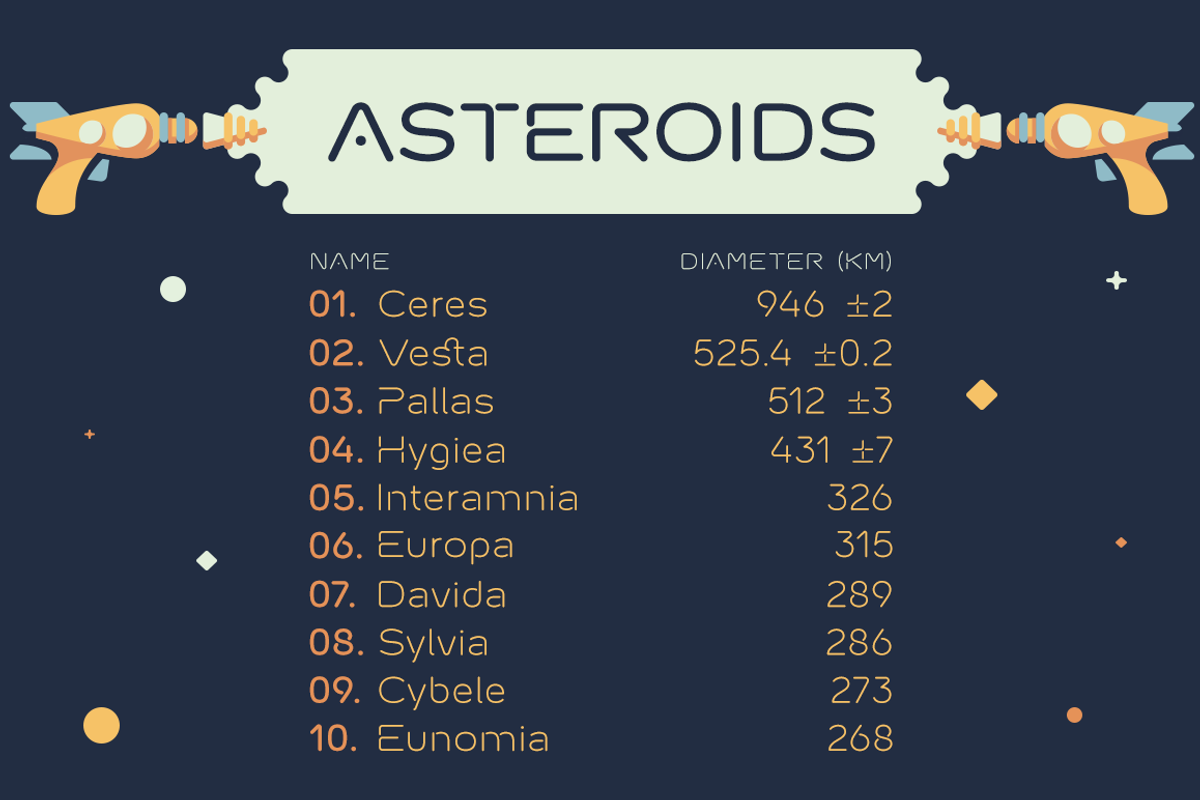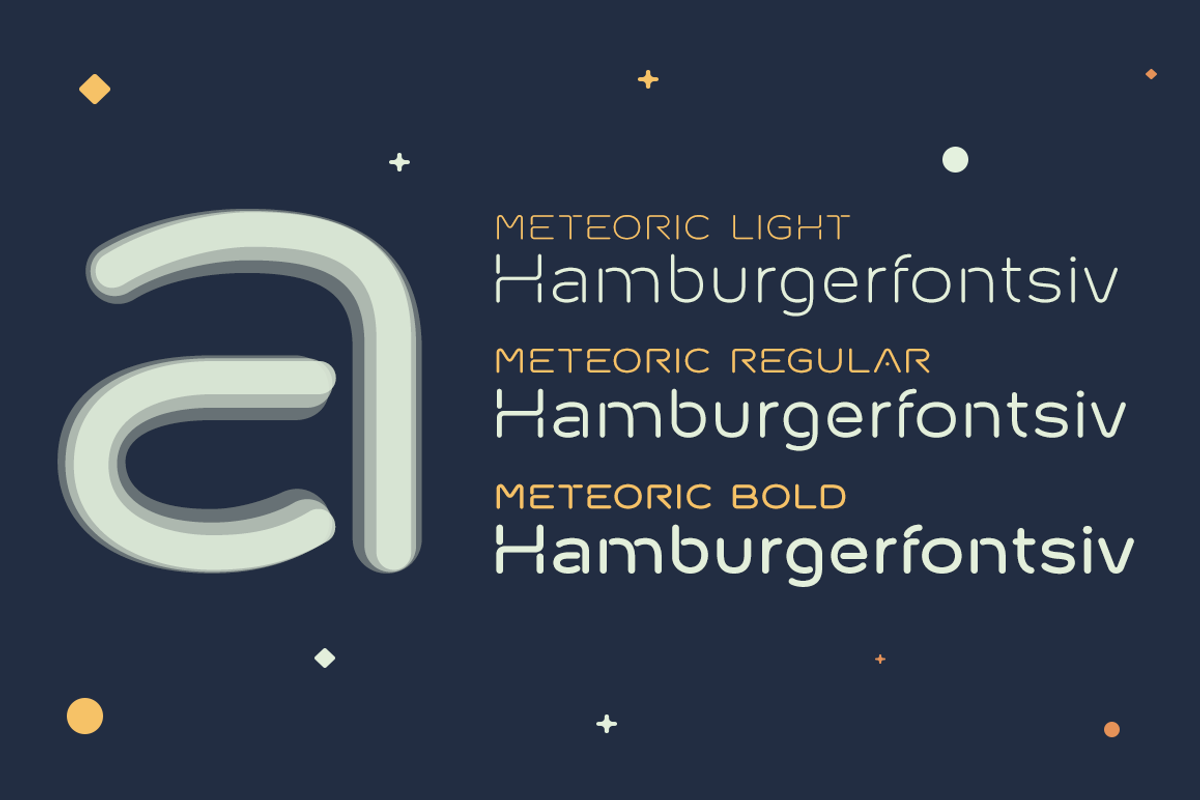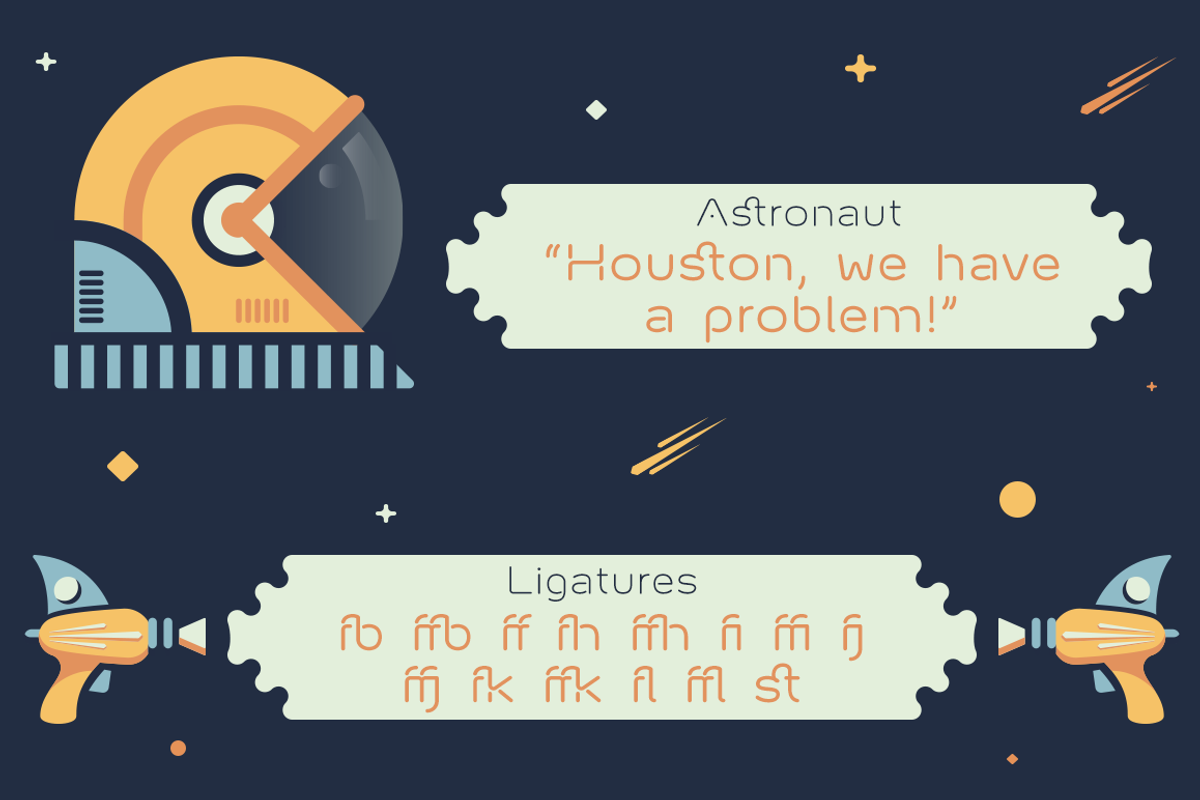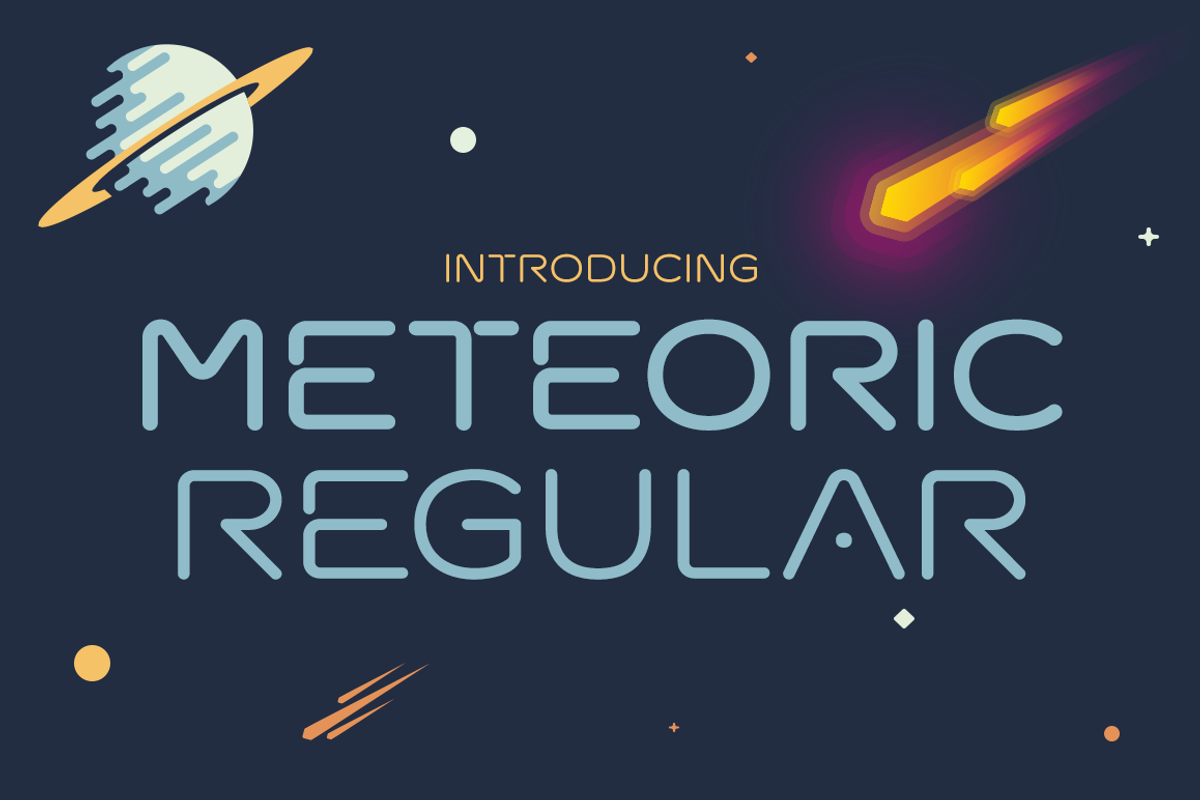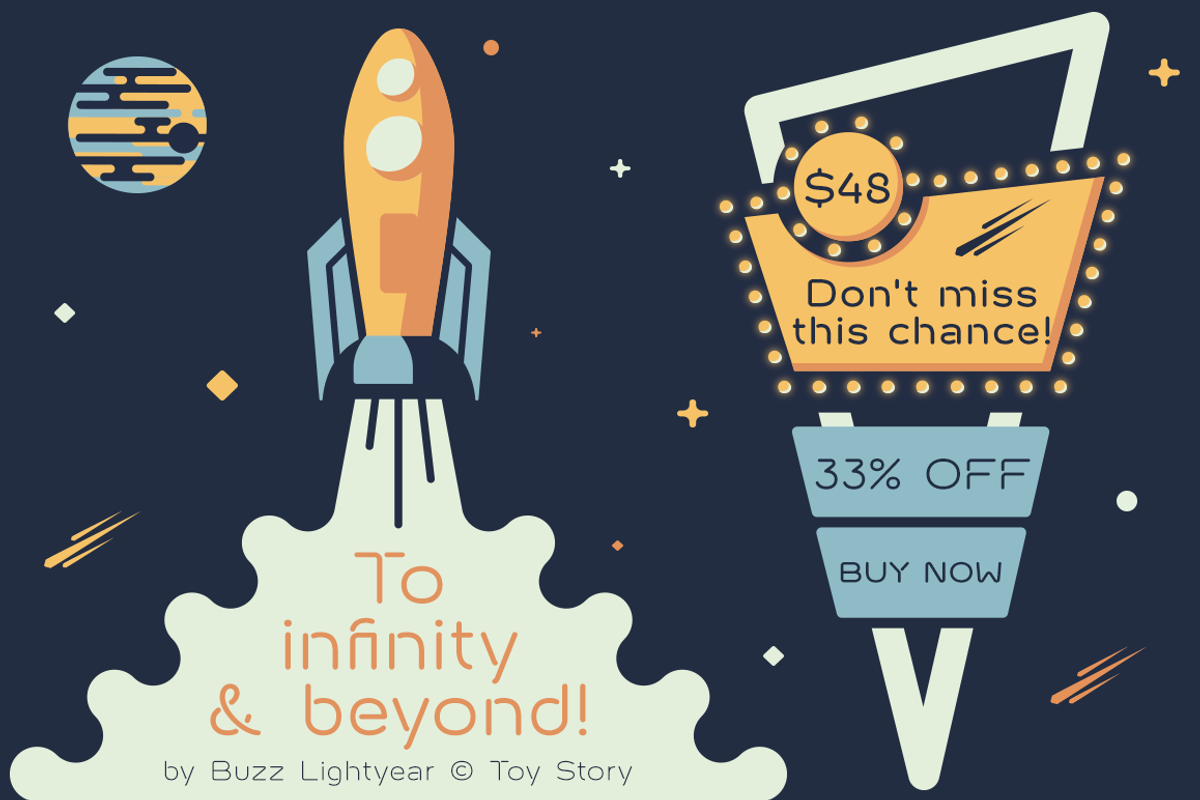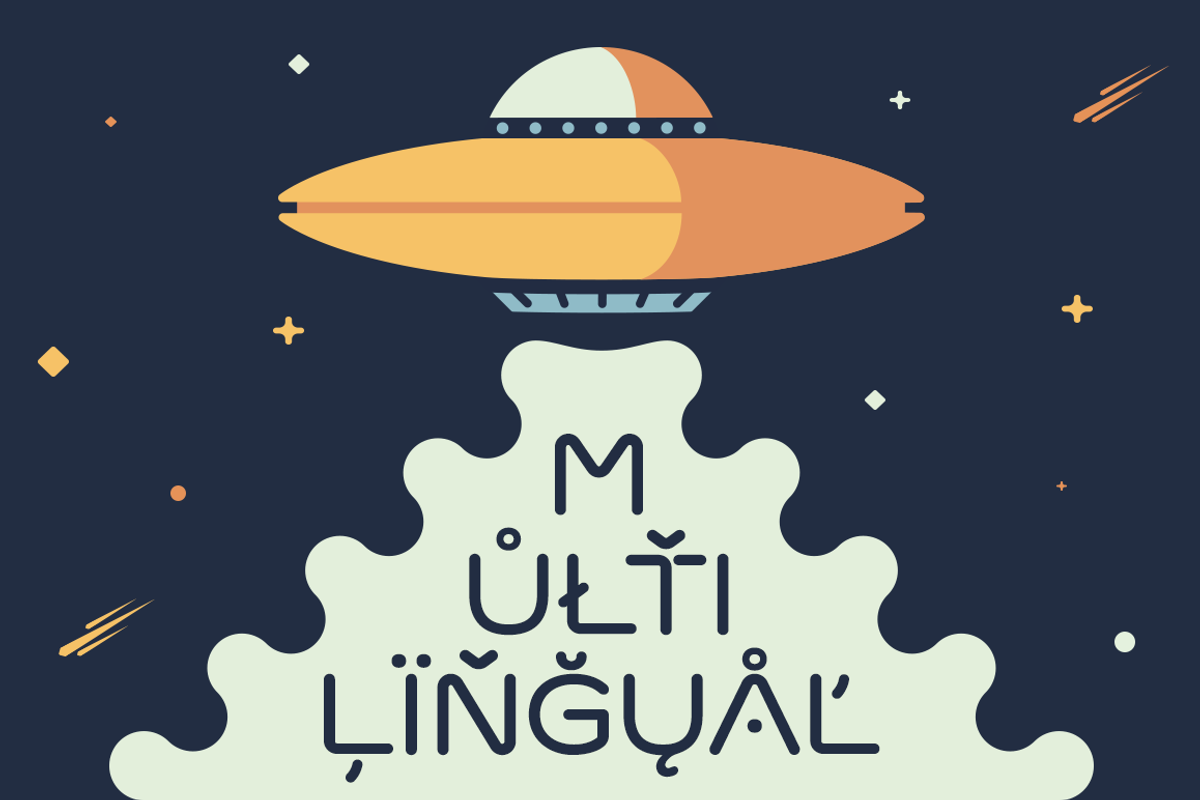
Meteoric Regular Font
Meteoric Regular Font by Nuno Dias is a font selected for branding, posters, packaging, typography.
Why Meteoric Regular Font is worth a look
Meteoric Regular Font by Nuno Dias fits naturally into Branding, posters, packaging, typography.